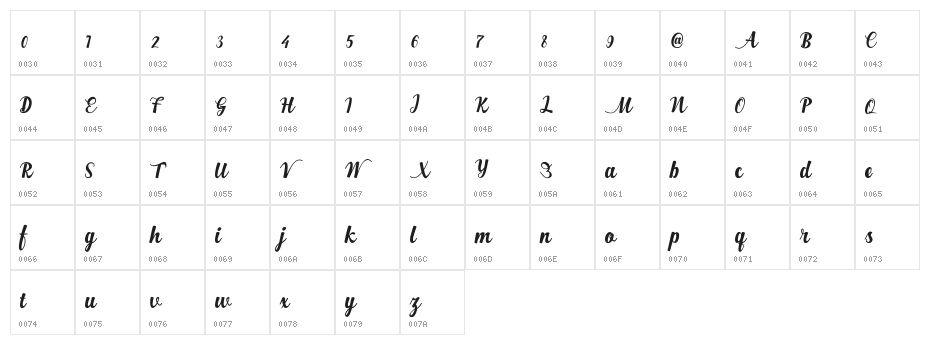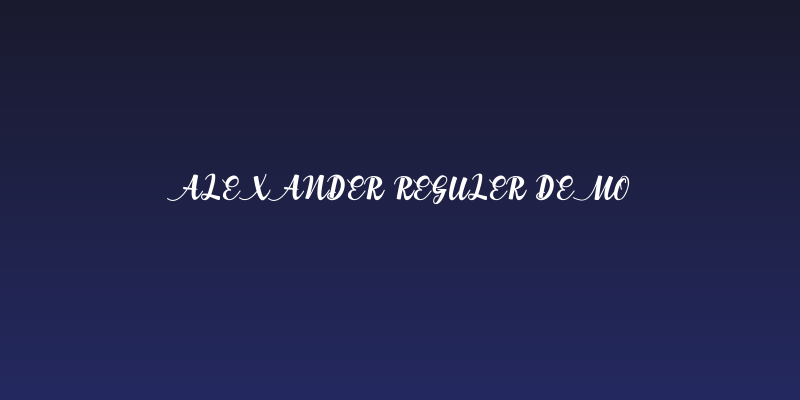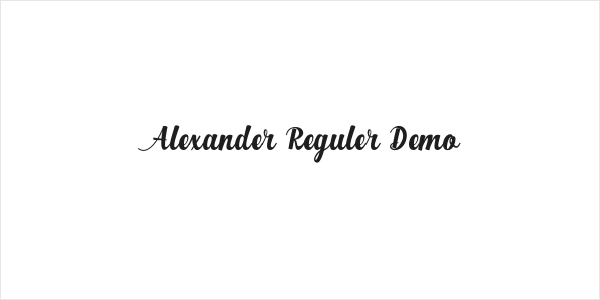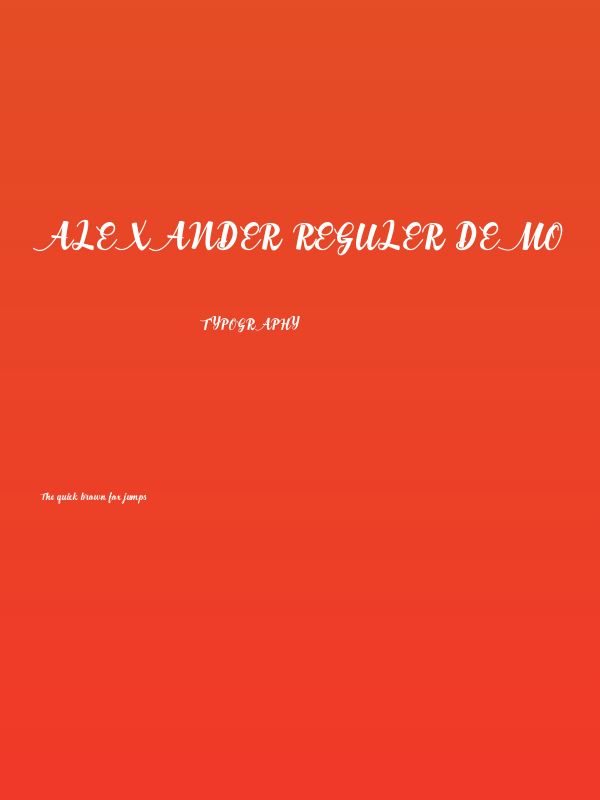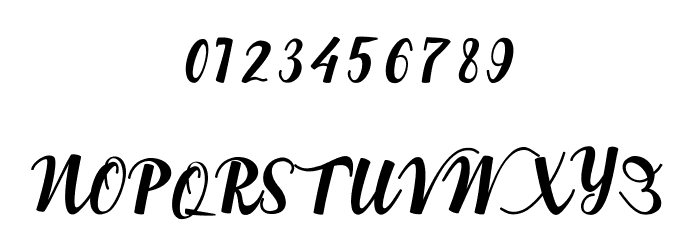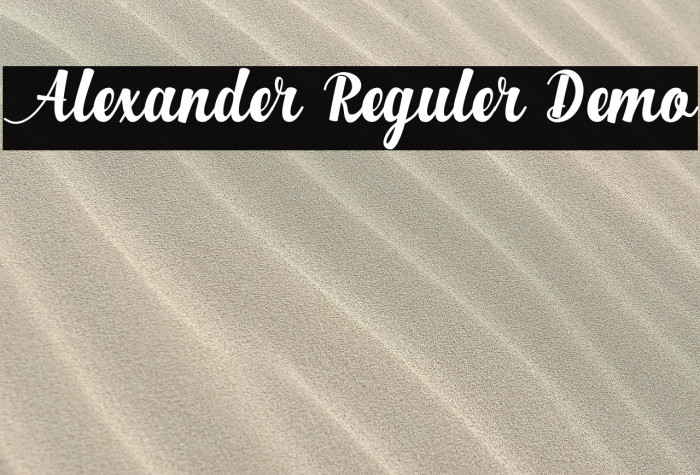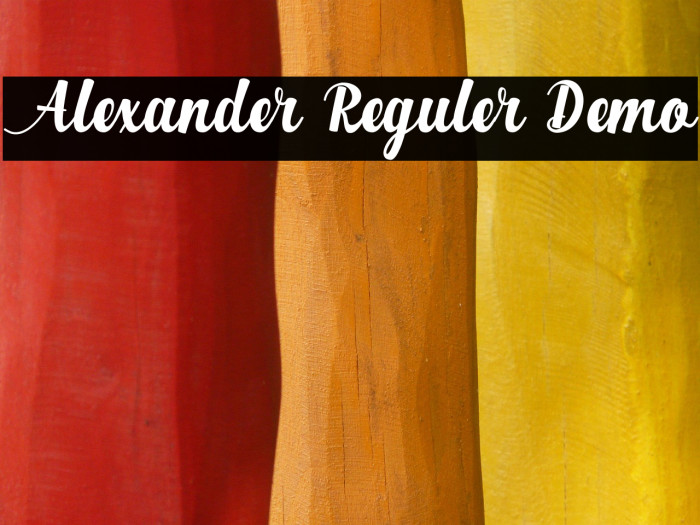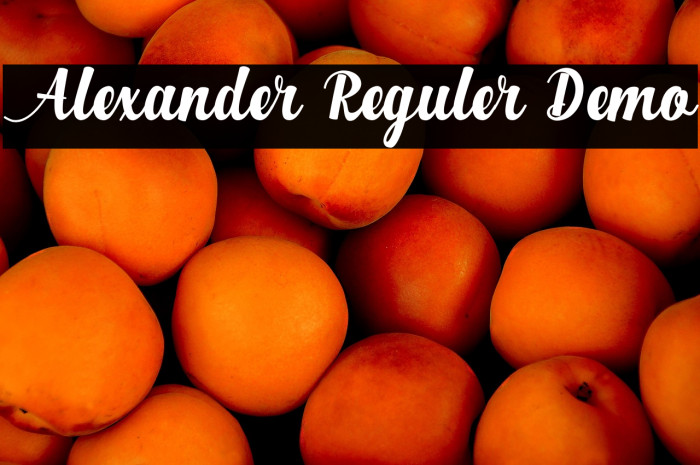
Alexander Reguler Demo Font
Alexander Reguler Demo Description
This elegant script font features a flowing, cursive style with smooth, connected strokes that create a sense of fluidity and grace. The uppercase letters are characterized by sweeping curves and flourishes, giving them a decorative and sophisticated appearance. The lowercase letters maintain a consistent style with gentle loops and rounded forms, enhancing readability while retaining an artistic flair. The numerals are designed to match the overall aesthetic, with a balanced mix of curves and straight lines. This font is suitable for projects that require a touch of elegance and refinement, such as wedding invitations, formal event programs, or upscale branding materials.
| Use Case | Headlines, Invitations, Branding |
| Proposed Projects | Ideal for wedding invitations, formal event programs, upscale branding, and elegant stationery. |